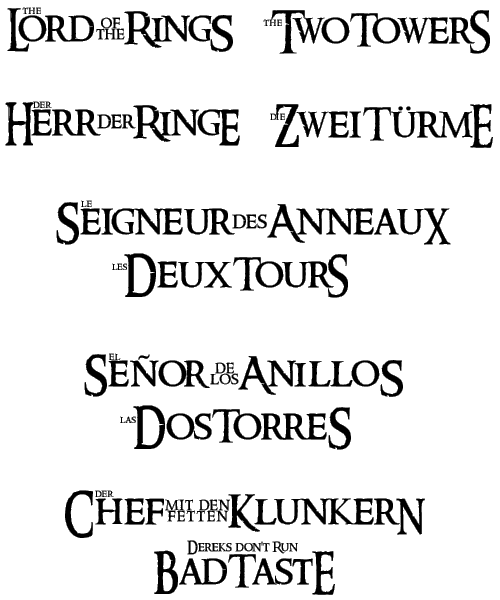
Lord Of The Ring Fonts
Lord Of The Ring Fonts. 'hobbiton' is a font created to emulate the handwriting used in the lord of the rings movie the fellowship of the ring, as seen in the land of the shire. The legend of the ring.
Tolkien Wrote The Lord Of The Rings As A Sequel To His 1937 Book, The Hobbit.
The Lord Of The Rings Font.
The Series Includes The Fellowship Of The Ring, The Two Towers And The Return Of The King.